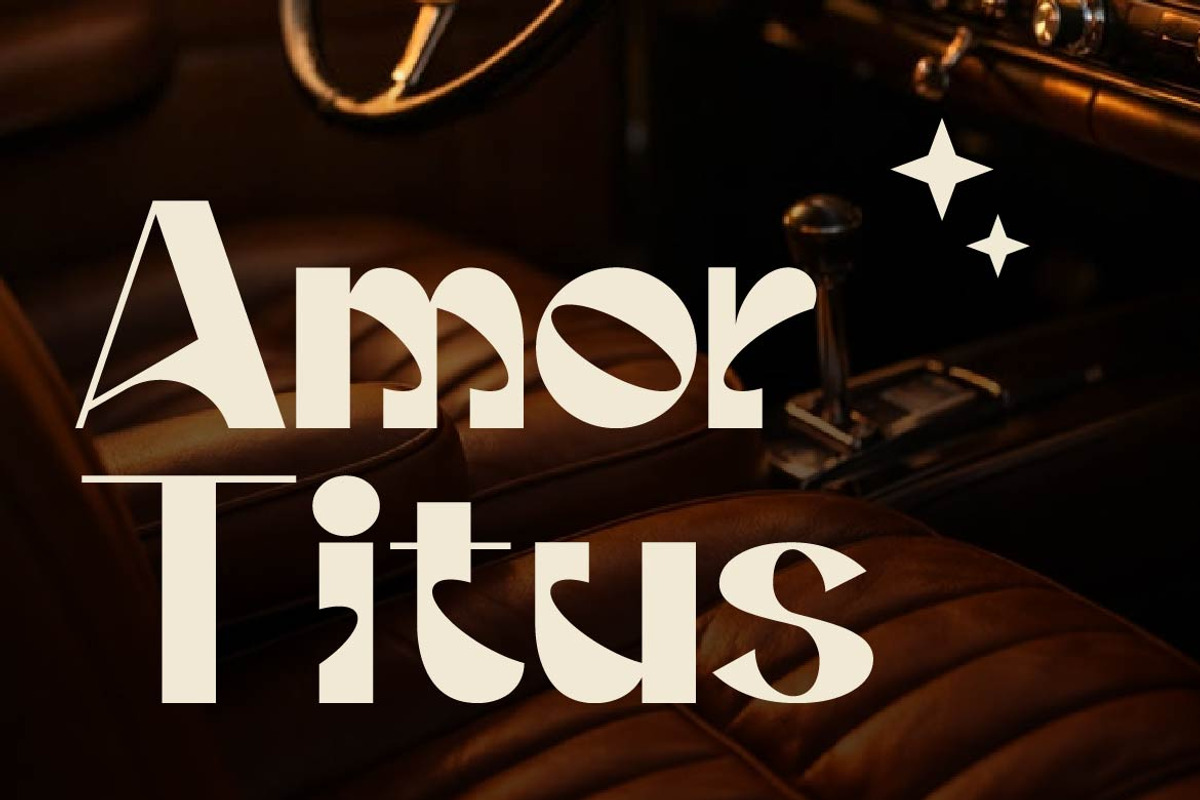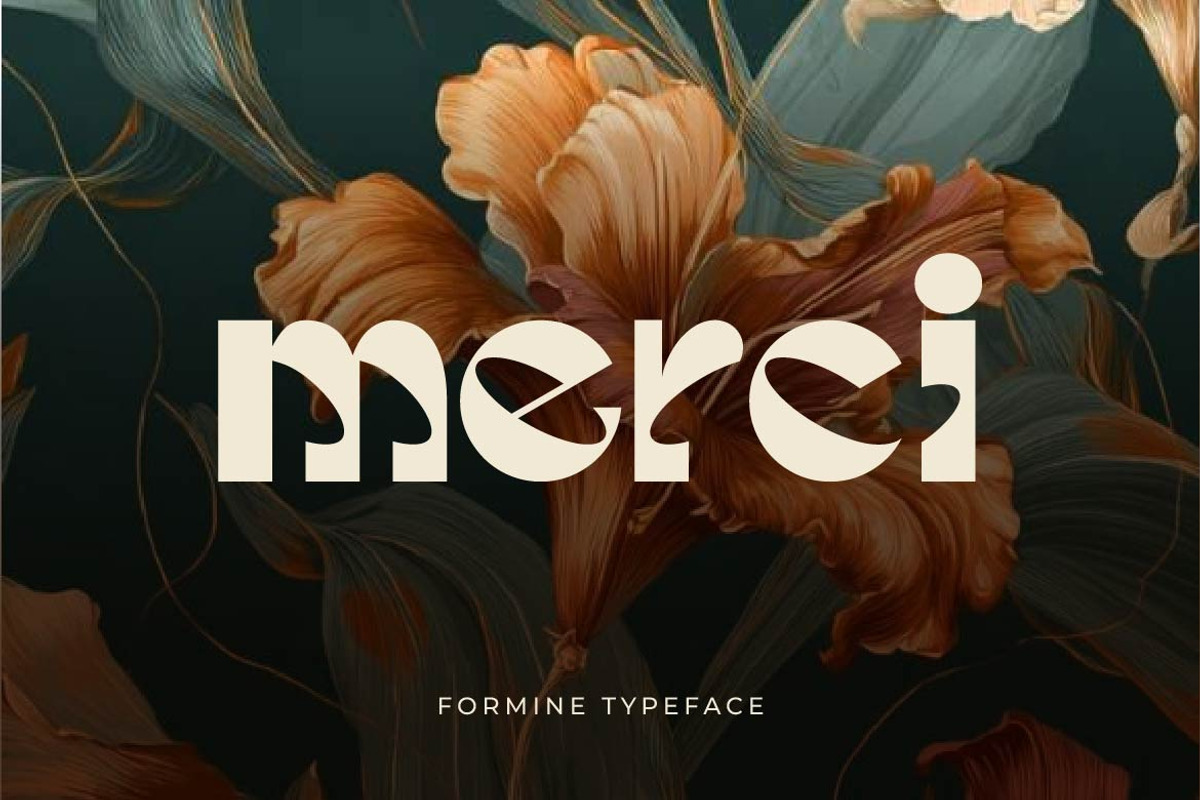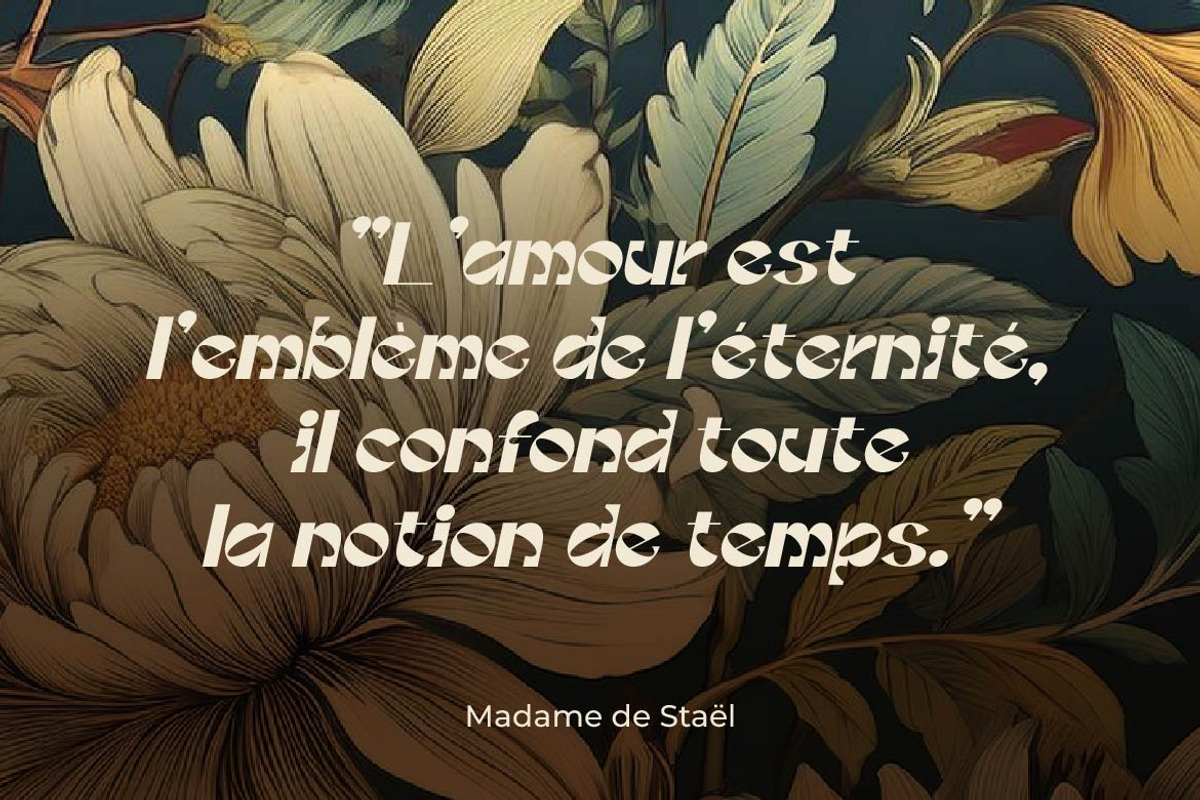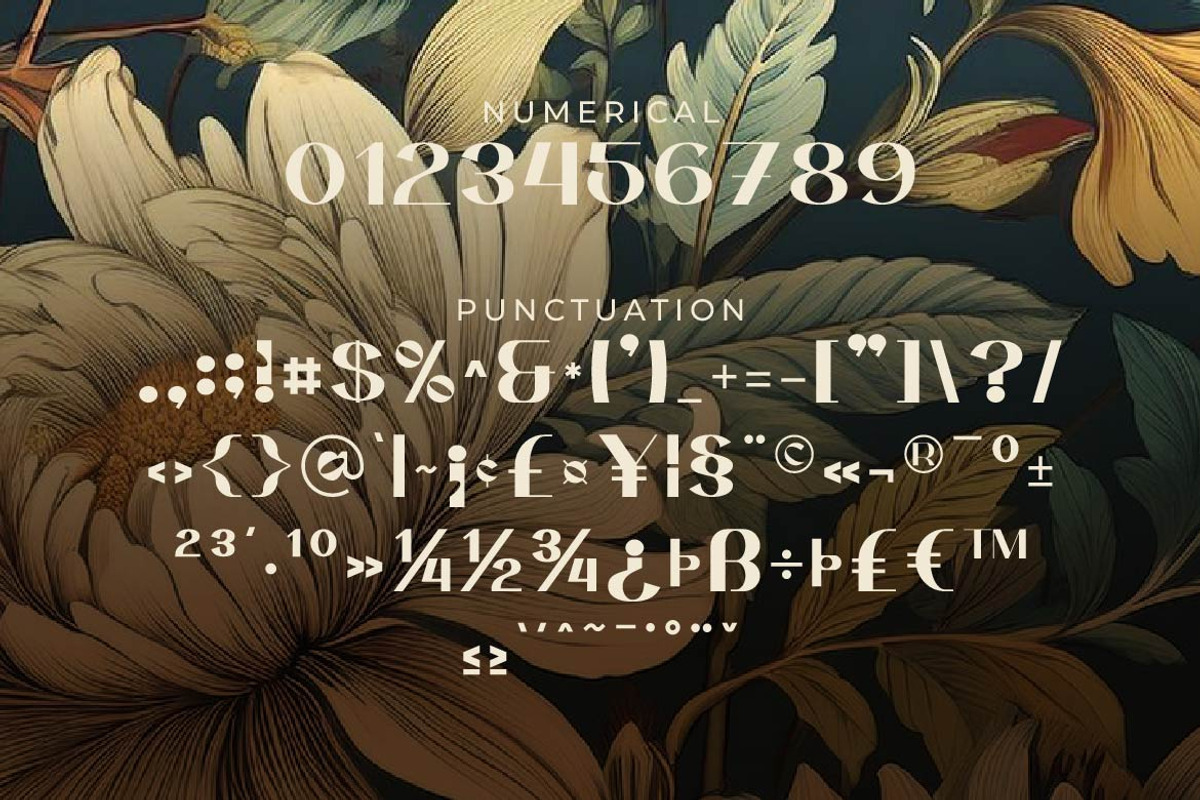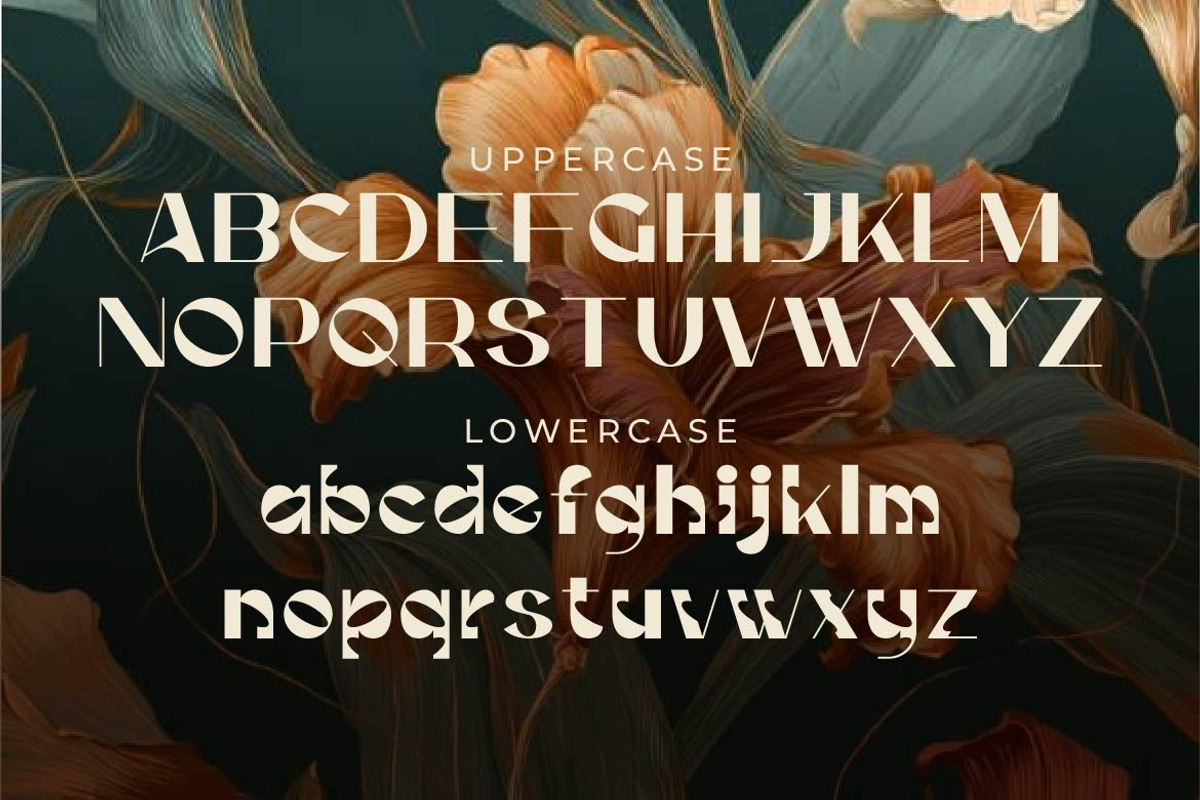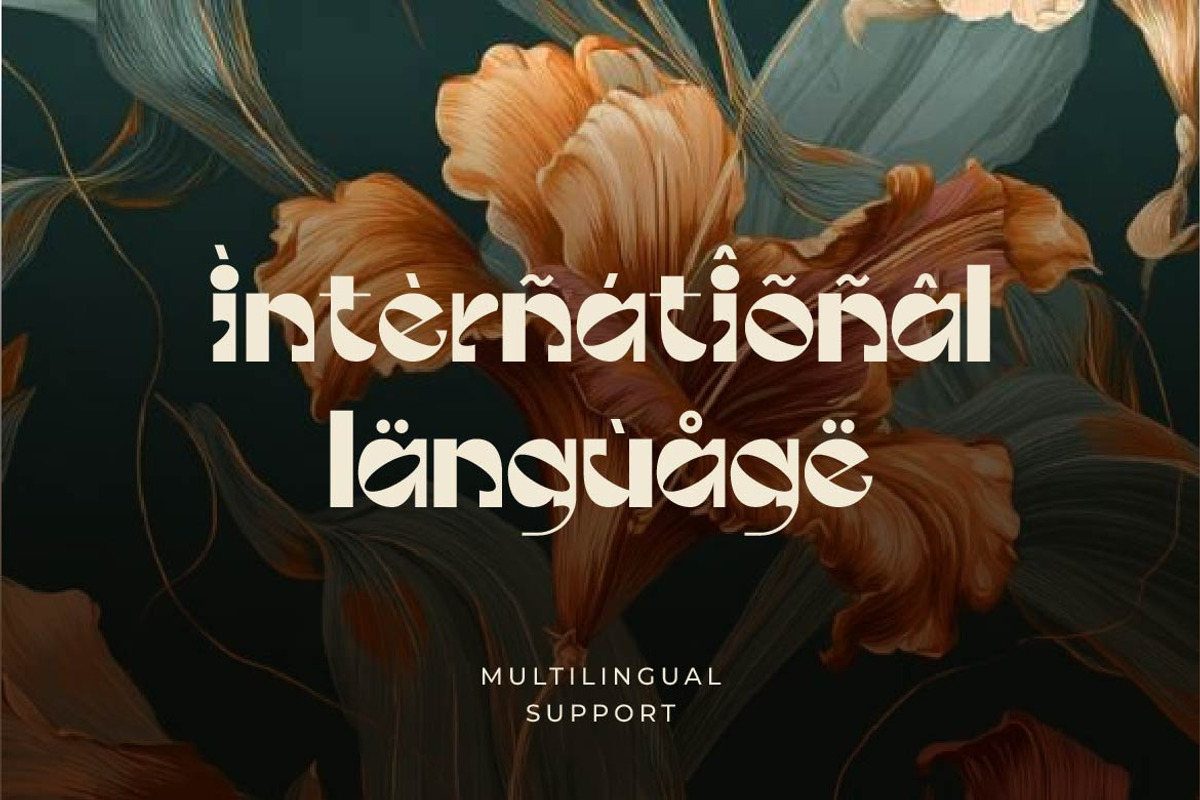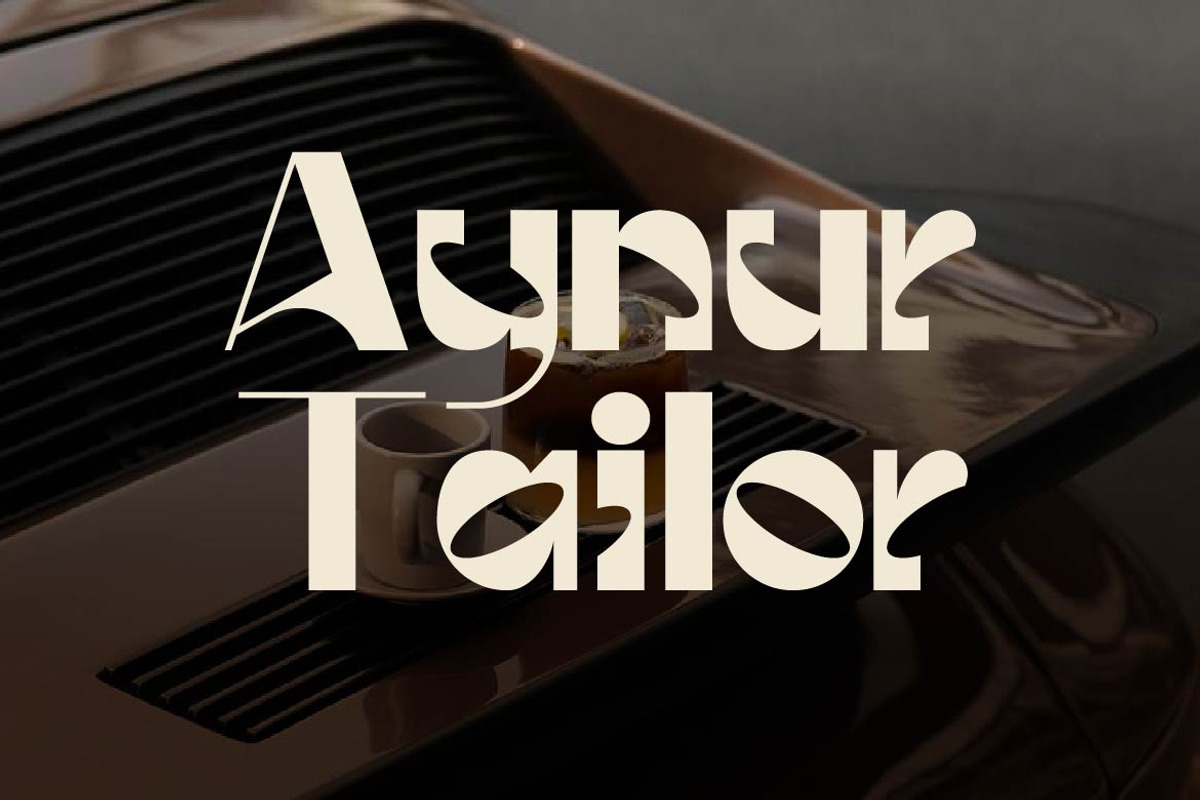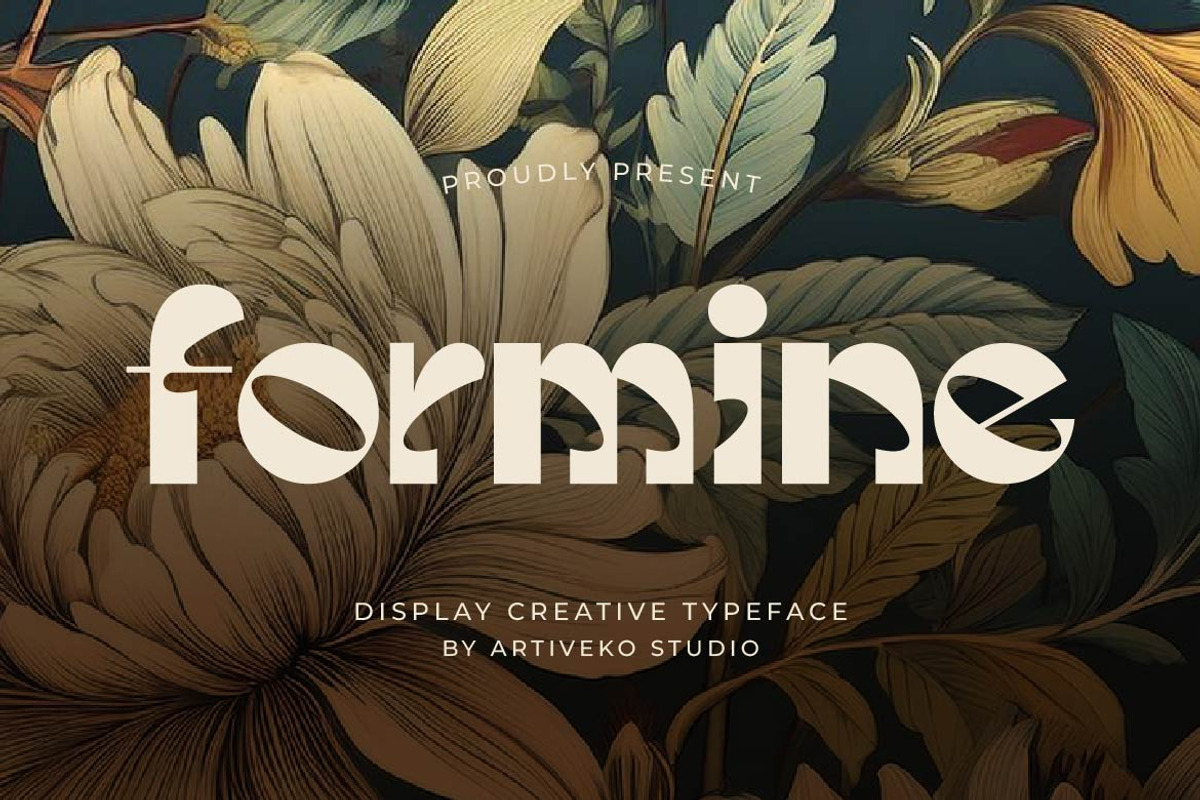
Formine – Retro Vintage Display Font
Formine brings the character of classic typography into a new creative era.
Inspired by vintage advertising, retro print culture, old-school signage, and nostalgic lettering, Formine is a creative vintage display font built to give modern designs an authentic sense of character. Its expressive letterforms create a strong visual presence while maintaining the versatility needed for contemporary design.
Formine works beautifully for retro logos, apparel graphics, restaurant identities, packaging, posters, album artwork, badges, labels, merchandise, and editorial headlines. It is especially suited to projects that need a handcrafted, nostalgic atmosphere without feeling outdated.
From a heritage-inspired clothing label to a vintage coffee package or a bold event poster, Formine gives typography a distinctive personality that immediately transports the viewer to another era.
Formine isn't just a vintage font—it's a modern interpretation of nostalgia, crafted for designers who want their work to feel authentic, memorable, and full of character.